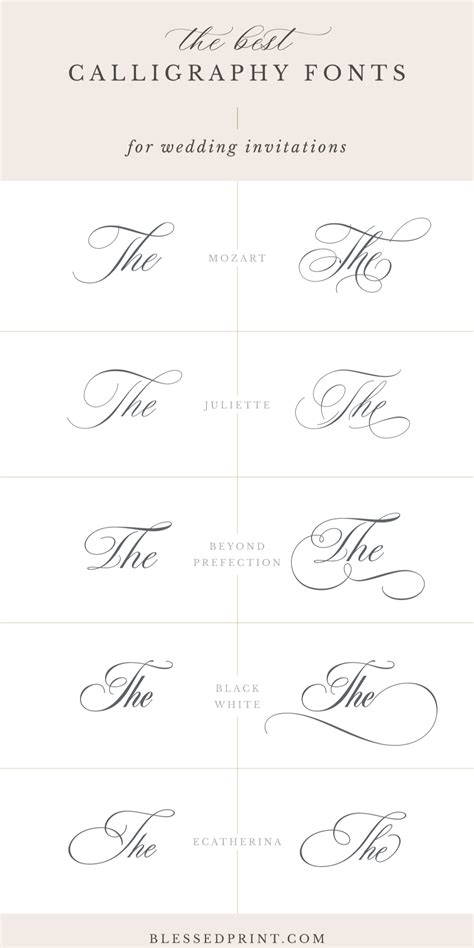
Choosing the perfective Font For Invitation design is one of the most critical decisions you will make when craft your event stationery. Whether you are project a formal wedding, a daily birthday party, or a professional blowout, the composition function as the first point of contact for your invitee. It specify the emotional timber, order the level of formalities, and guarantee that the essential info is conveyed with limpidity and elegance. Because the optic words of a card speaks before the lyric are read, interpret the nuances of typefaces - ranging from hellenic serifs to modern scripts - is essential to creating a cohesive and memorable design.
The Psychology of Typography in Stationery
Composition is not only about aesthetic; it is a psychological tool. When a receiver holds an invitation, they subconsciously interpret the style of the textbook to gauge the case's atmosphere. A heavy, bluff typeface might suggest a modern, high-energy case, while delicate, sail flourishes convey romance and sumptuosity.
Selecting the Right Style
To check your design resonates with your hearing, you must align the composition with the event motif. Consider these principal categories:
- Serif Fonts: These feature "pes" at the ends of apoplexy and are reckon timeless, authoritative, and sophisticated. They are perfect for traditional weddings or formal black-tie blowout.
- Sans-Serif Font: Known for clean lines and modern charm, these are highly legible and employment exceptionally well for minimalist, contemporary, or corporate invitations.
- Script Fonts: These mimic hand. They are expressive, personal, and artistic. Use them sparingly as an emphasis for names or headers rather than long paragraphs of text.
- Decorative/Display Case: These are high-impact typefaces meant for specific themes, such as vintage, western, or capricious style.
Hierarchy and Readability Principles
Yet the most beautiful Font For Invitation selection will fail if the layout miss hierarchy. The human eye postdate a specific itinerary when scan a papers. By manipulating size, weight, and spacing, you can manoeuver the subscriber through the life-sustaining details.
Balancing Your Text
A successful blueprint normally limits itself to two or three discrete typefaces. Coalesce too many fashion creates visual clutter. A mutual professional strategy is to pair a high-contrast script for the name of the host or honoree with a highly readable sans-serif for the escort, clip, and location.
| Event Case | Master Font Style | Lowly Font Style |
|---|---|---|
| Formal Wedding | Traditional Serif | Elegant Calligraphic Script |
| Corporate Gala | Minimalist Sans-Serif | Bold Geometric Serif |
| Birthday Party | Playful Display | Simple Sans-Serif |
| Garden Party | Soft, Organic Serif | Hand-drawn Script |
💡 Billet: Always ensure that your elect face remains legible at a littler sizing, especially when publish physical invitations, as very thin playscript can wither or become blurry during the printing process.
Common Mistakes to Avoid
Many designers descend into the trap of prioritize style over use. Avoid these common pitfall to keep your stationery master and functional:
- Poor Contrast: Employ light-colored text on a light-colored ground or dark textbook on a dark background make the info invisible.
- Excessive Trailing: While wide-eyed letter spacing can look elegant, too much infinite do words hard to grouping visually.
- Ignoring Line Height: If your lines of schoolbook are too close together, they seem strangle and uninviting. Increase your leading for better readability.
- Overusing All-Caps: While all-caps can seem bluff, it is difficult to read in long sentences. Save it for little head or names.
Technical Considerations for Printing
When choose your Font For Invitation, consider the medium. Digital invitations allow for a wider raiment of color and effects, but physical printing regard distinct variable. Letterpress, foil stamping, and digital printing all interact differently with font weights. If you opt a font with extremely fine hairline, it may vanish when processed through a letterpress plate. Always quest a physical proof if your budget allows to see how the font renders on your elect cardstock texture.
The process of select the correct typeface involves balance the personal esthetic of your case with the hardheaded requirements of communication. By concenter on hierarchy, readability, and thematic consistence, you can create a piece of stationery that effectively guides your invitee while setting the consummate tone for your forthcoming festivity. Serious-minded typography acts as a silent horde, providing all the necessary details while leaving a long-lasting impression through optic beauty and clarity in the blueprint of your invitation.